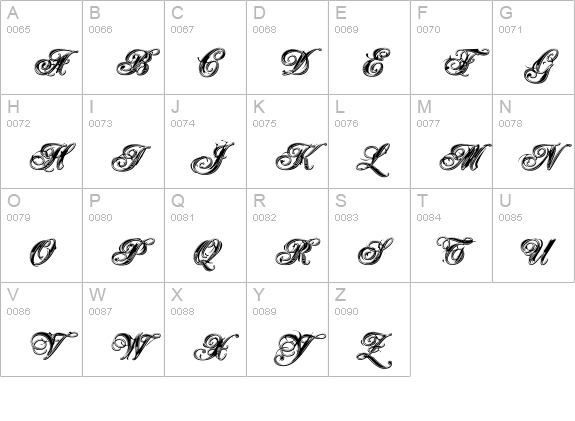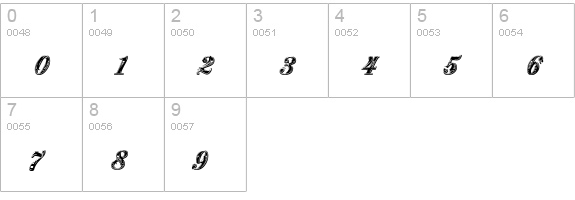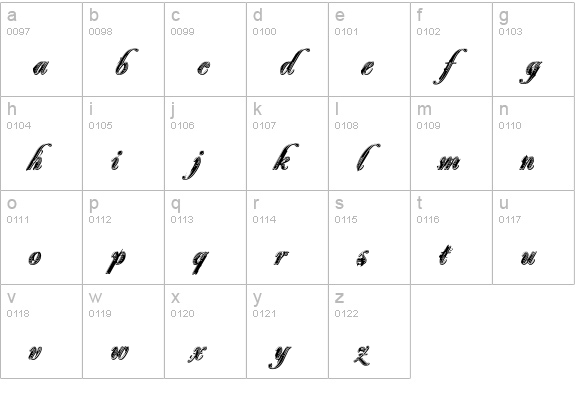
Great Circus Dirty Bold Font Details
Great Circus Dirty Bold is a strong, high-contrast variant in the Great typeface family \xE2\x80\x94 well suited to headlines, attention-grabbing titles, and strong calls-to-action.
Great Circus Dirty Bold font is a playful and whimsical typeface that exudes a sense of fun and excitement. Its bold and dynamic letterforms are perfect for grabbing attention and adding a touch of creativity to any design project. Whether you're working on a poster, flyer, logo, or any other creative endeavor, this font is sure to make a statement. The Great Circus Dirty Bold font is free to download at FontsMarket.com, making it accessible to designers of all levels looking to add a unique and eye-catching element to their work. With its quirky and distinctive style, this font is a great choice for those seeking to inject a sense of playfulness and energy into their designs. Download it today and let your creativity run wild with Great Circus Dirty Bold font.